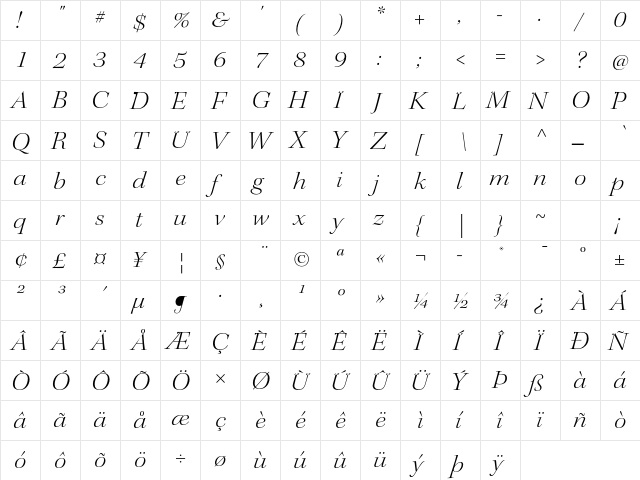
Kepler Std Light Extended Italic Display Font Preview
| Designer | Robert Slimbach |
Design Context for Kepler Std Typeface
Kepler Std brings ornamental detail and strong personality to headlines and identities, where visual impact matters more than quiet functionality. The dynamic lean of this cut emphasises speed and emphasis in any layout. Its slender proportions lend an understated elegance to any composition.
Font Pairing: Pair with a clean neutral sans-serif for body copy to let Kepler Std's character lead without overwhelming the composition.
Pro Tip: Use Kepler Std exclusively at display sizes — it was designed to be seen, not read at length. Let a neutral companion handle body copy.